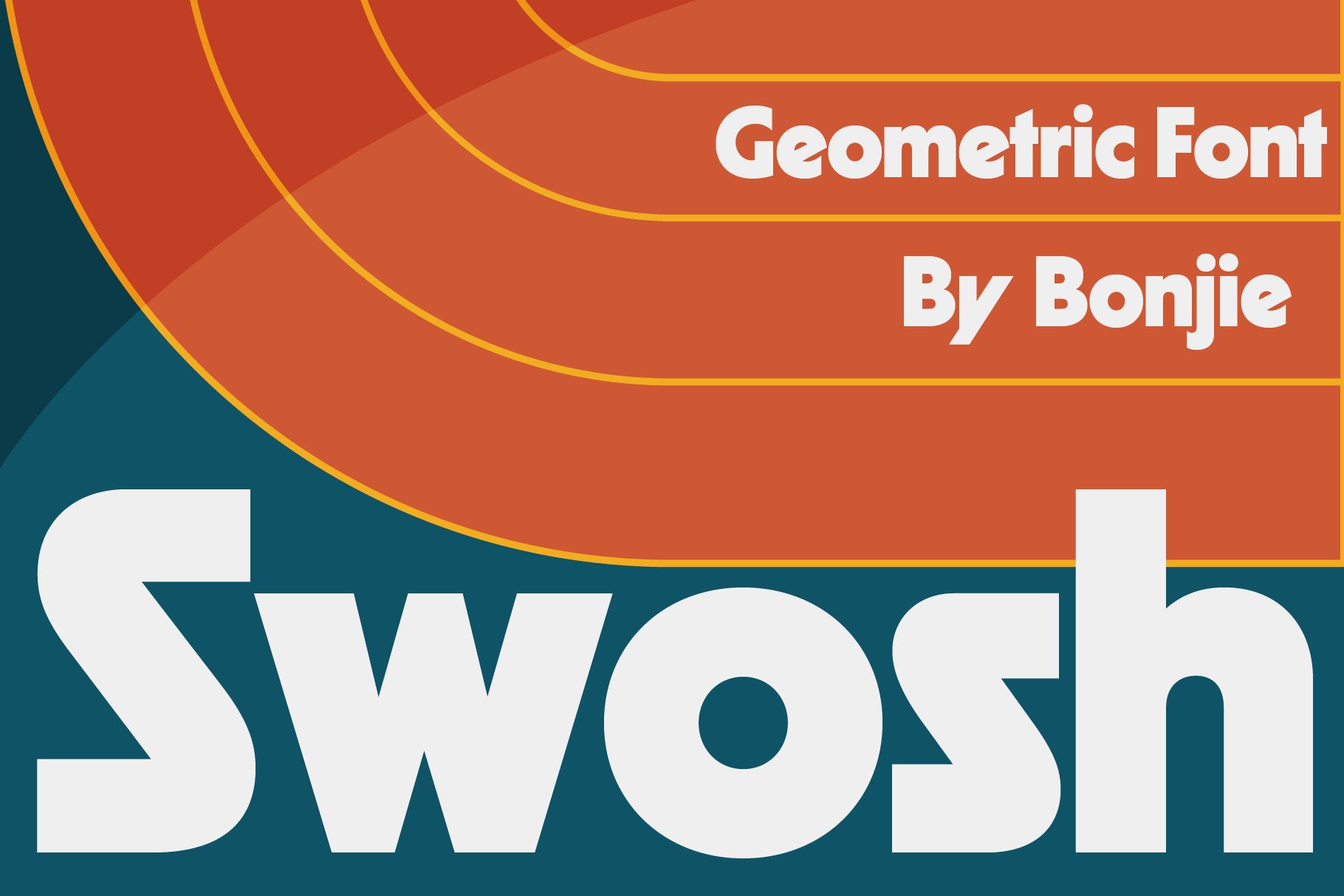
Swosh - Geometric Display Font
Swosh - is a bold geometric display font inspired by vintage sports emblems and retro signage from the golden era of athletic culture. With chunky letterforms, strong vertical cuts, and circular counters, it brings energy and rhythm to every word. Designed for maximum impact, this typeface balances solid construction with playful character.
Perfect for headlines, posters, and branding that need to stand tall and proud. The combination of clean curves and angular geometry makes it ideal for retro-modern aesthetics, especially in themes like athletics, city culture, or active lifestyle branding.